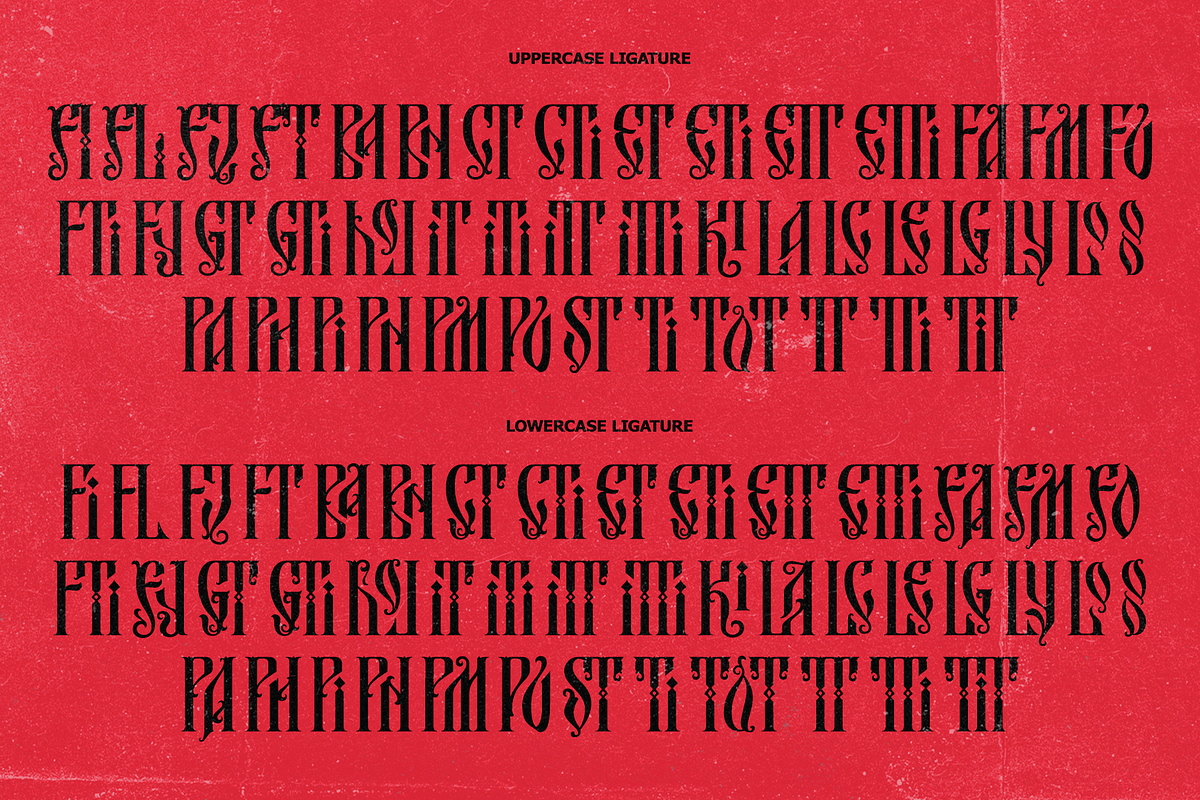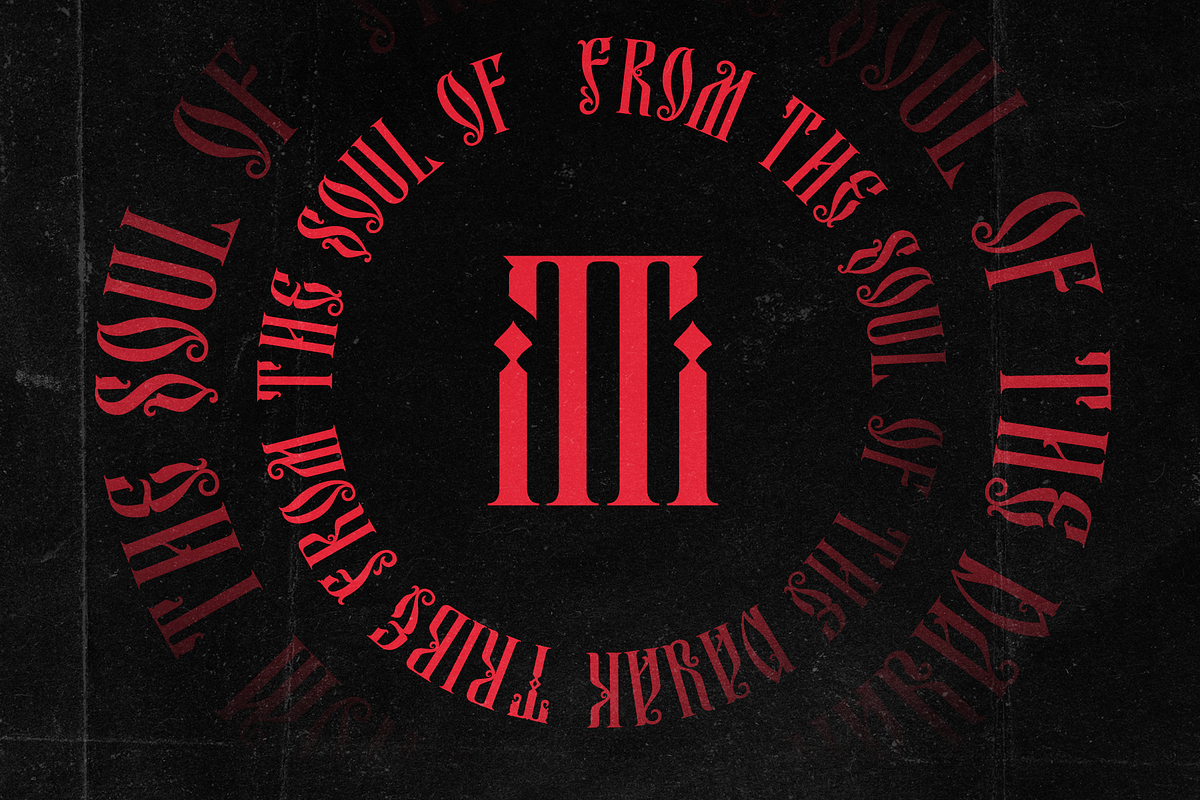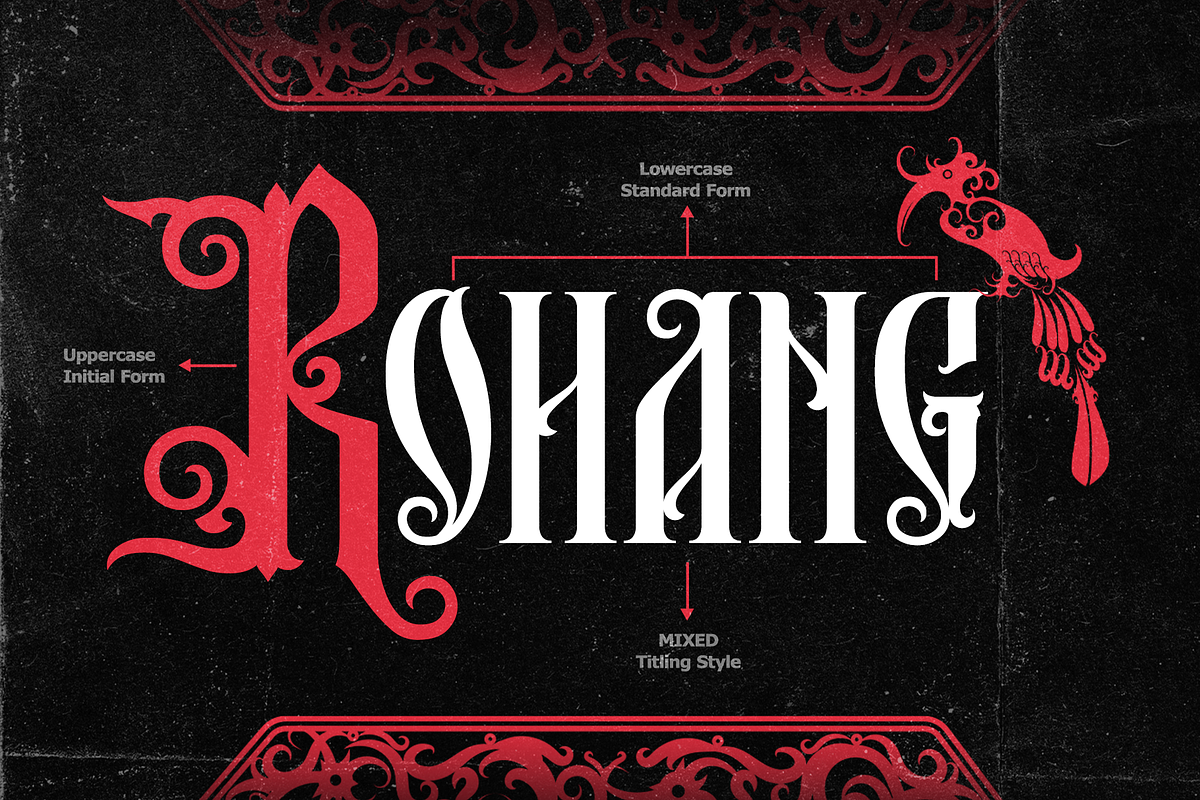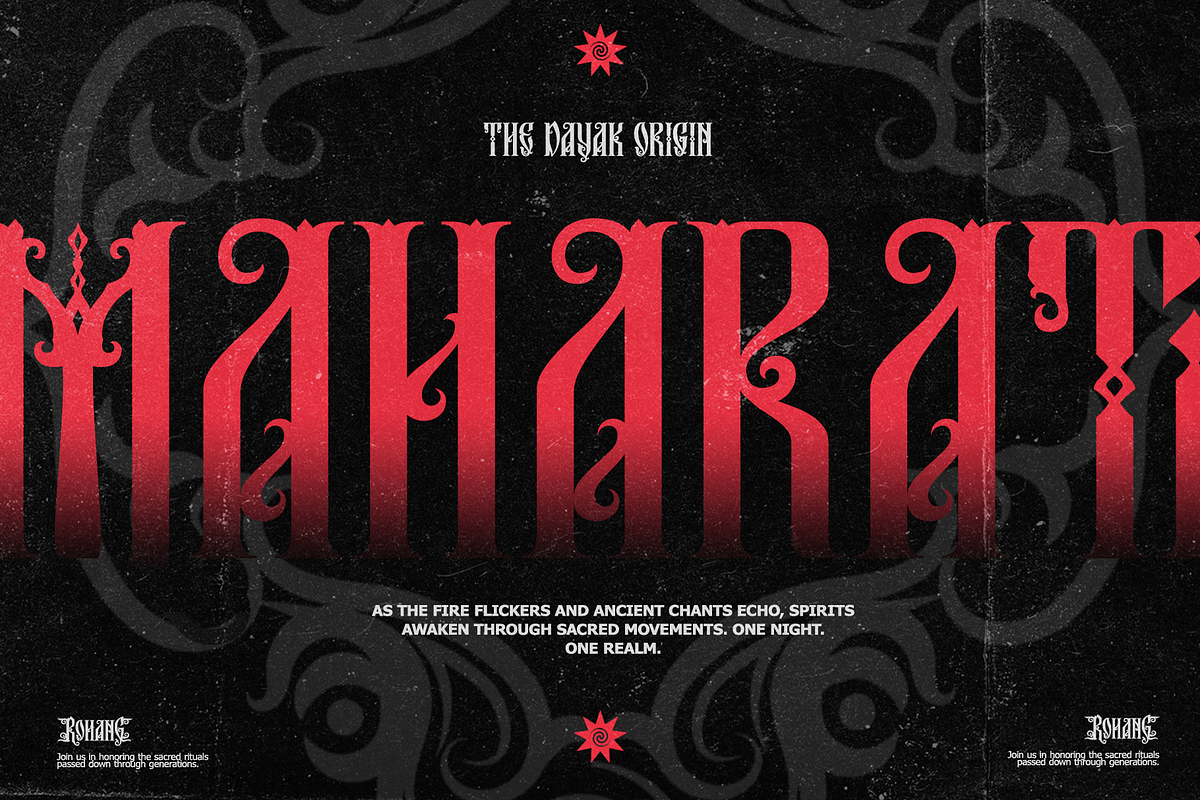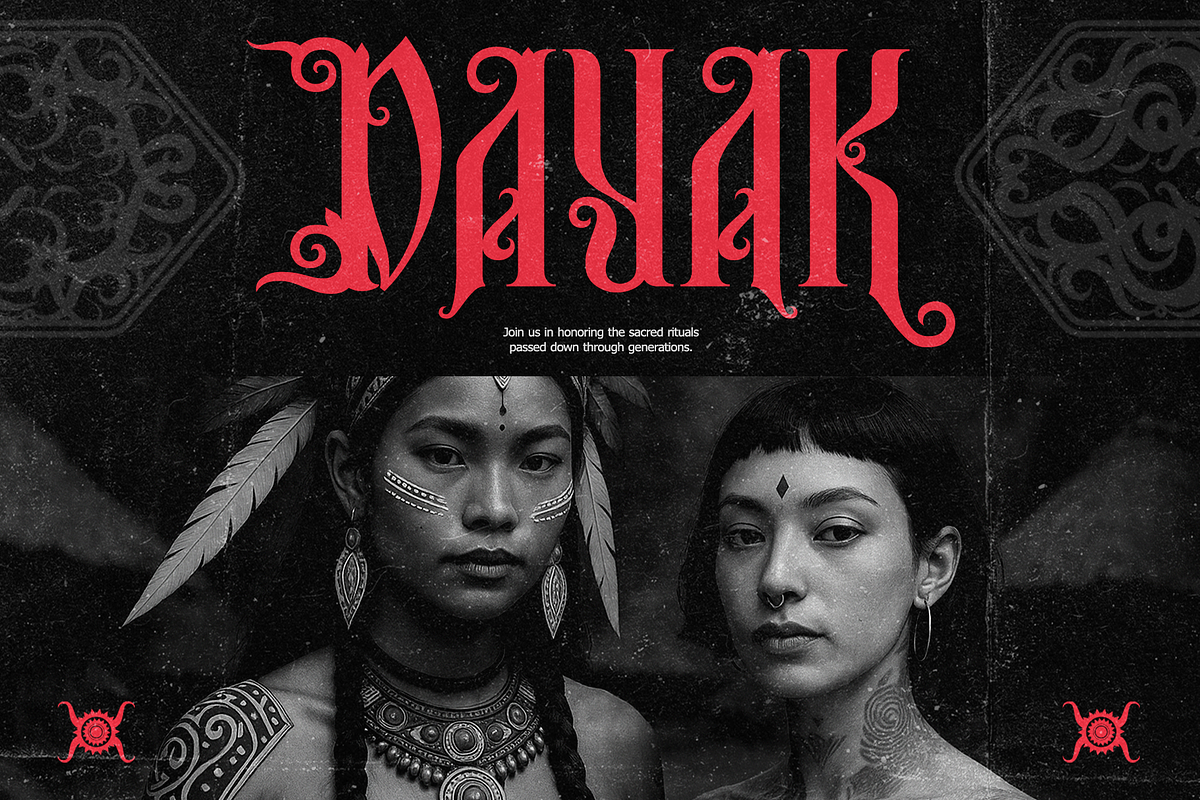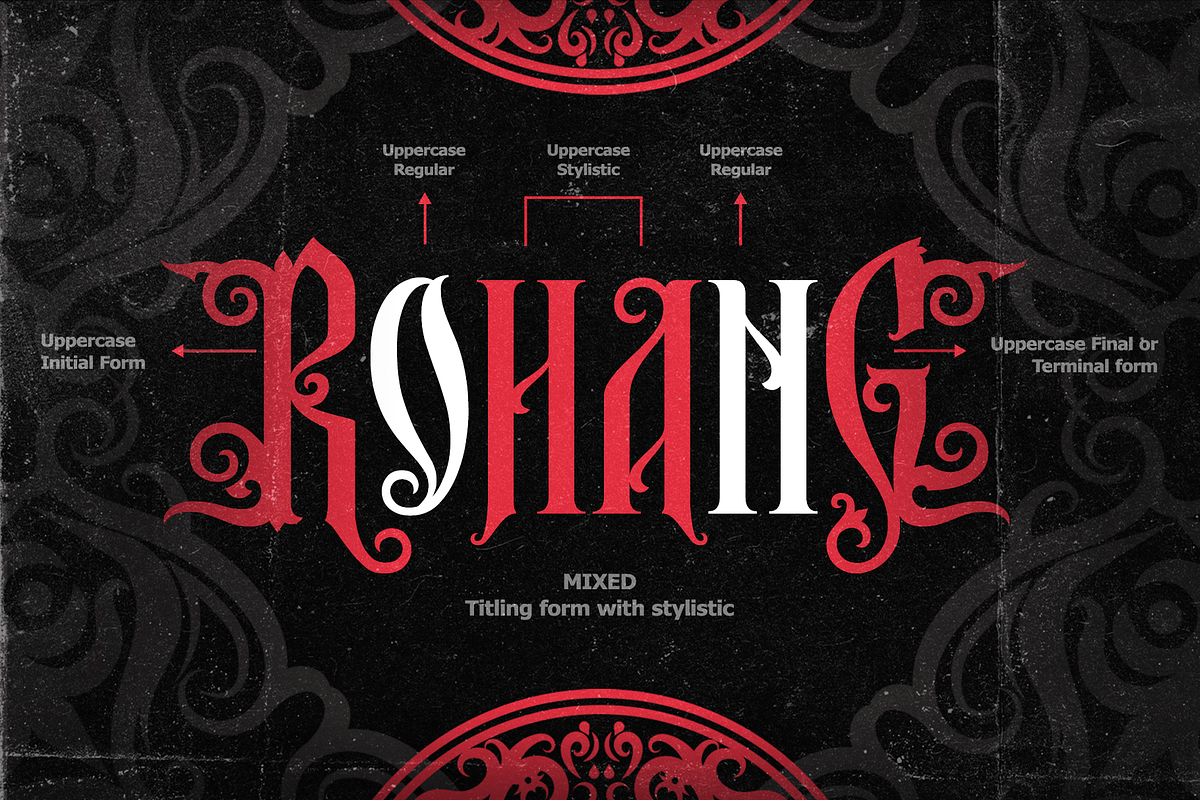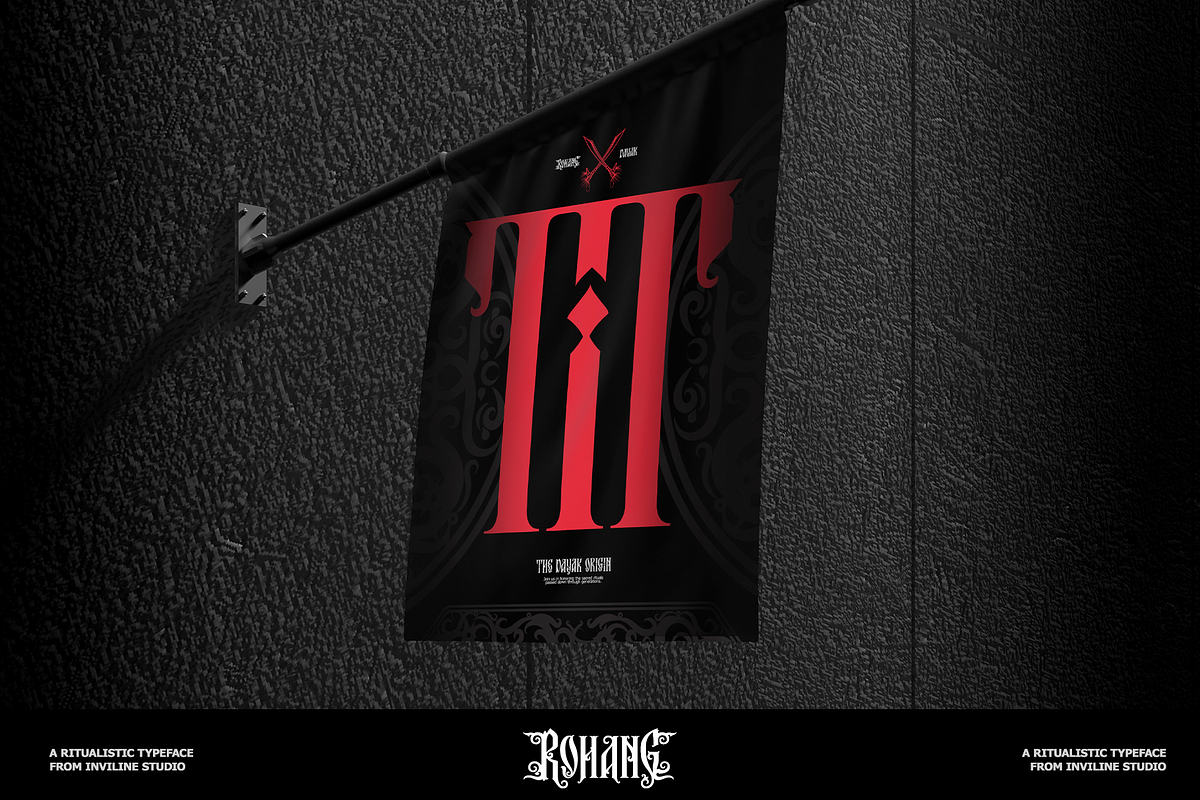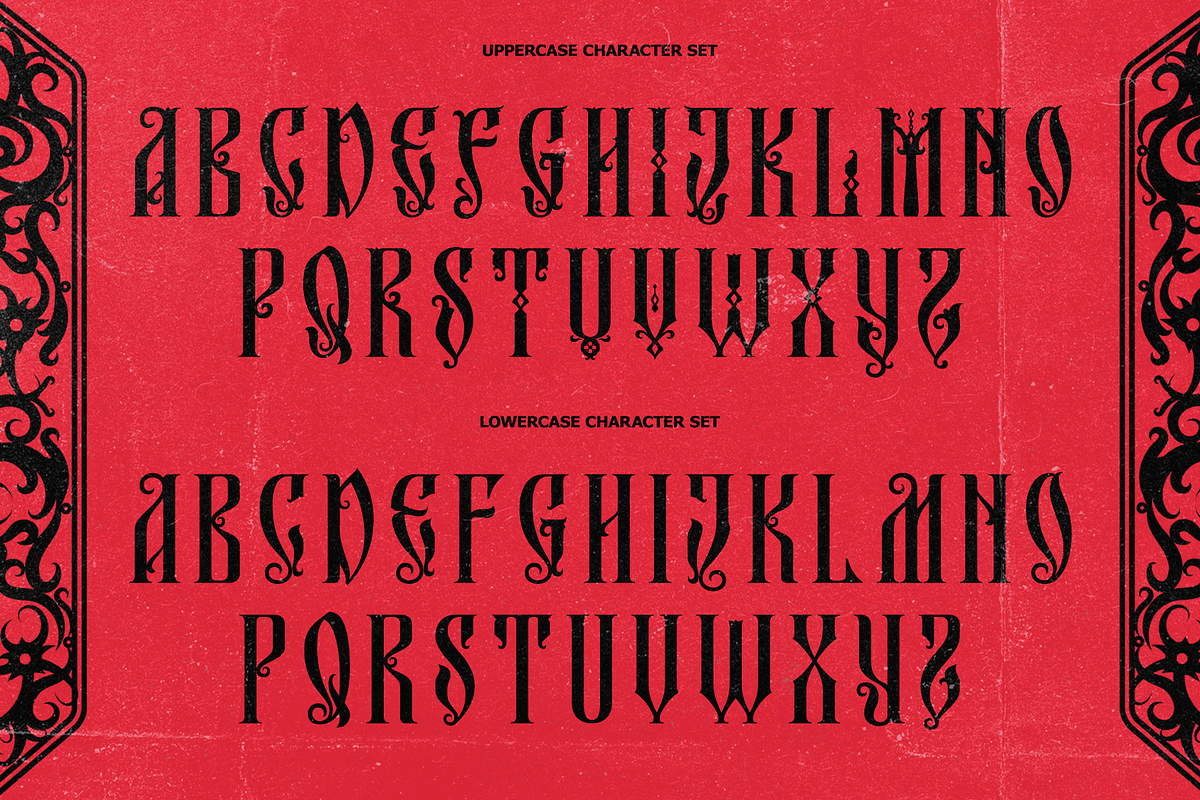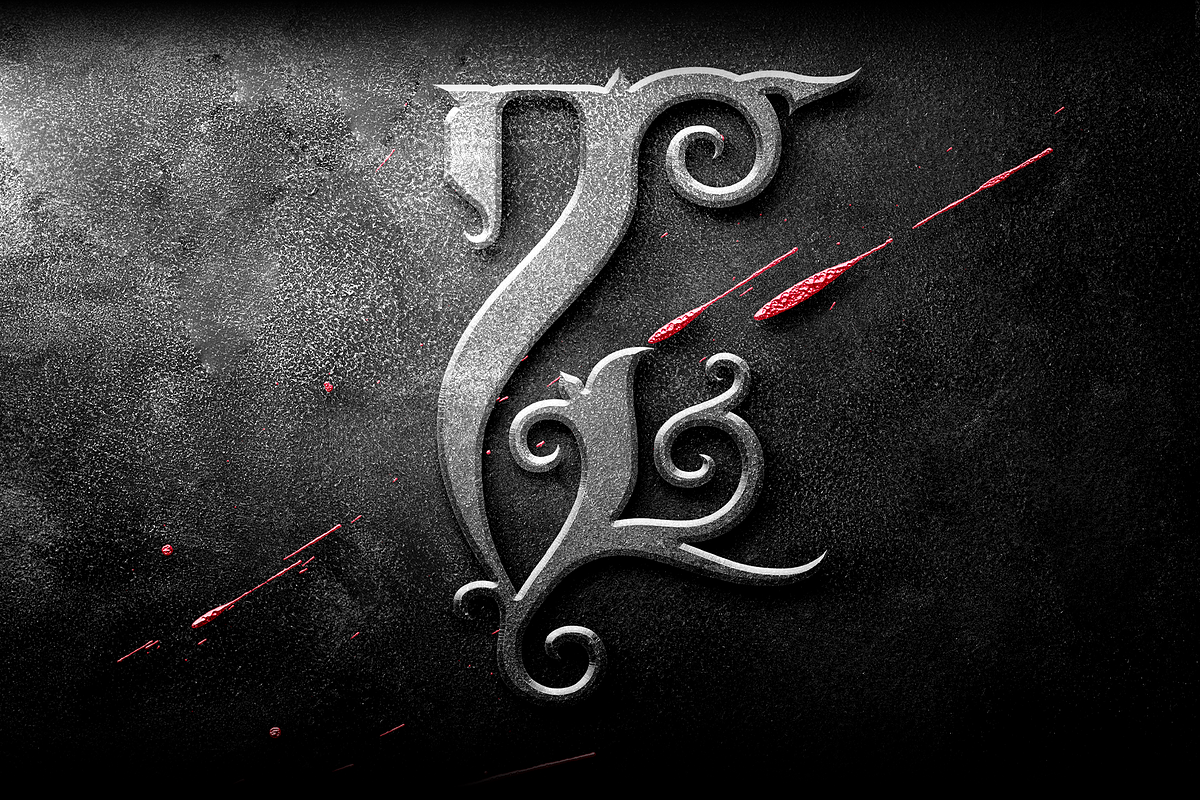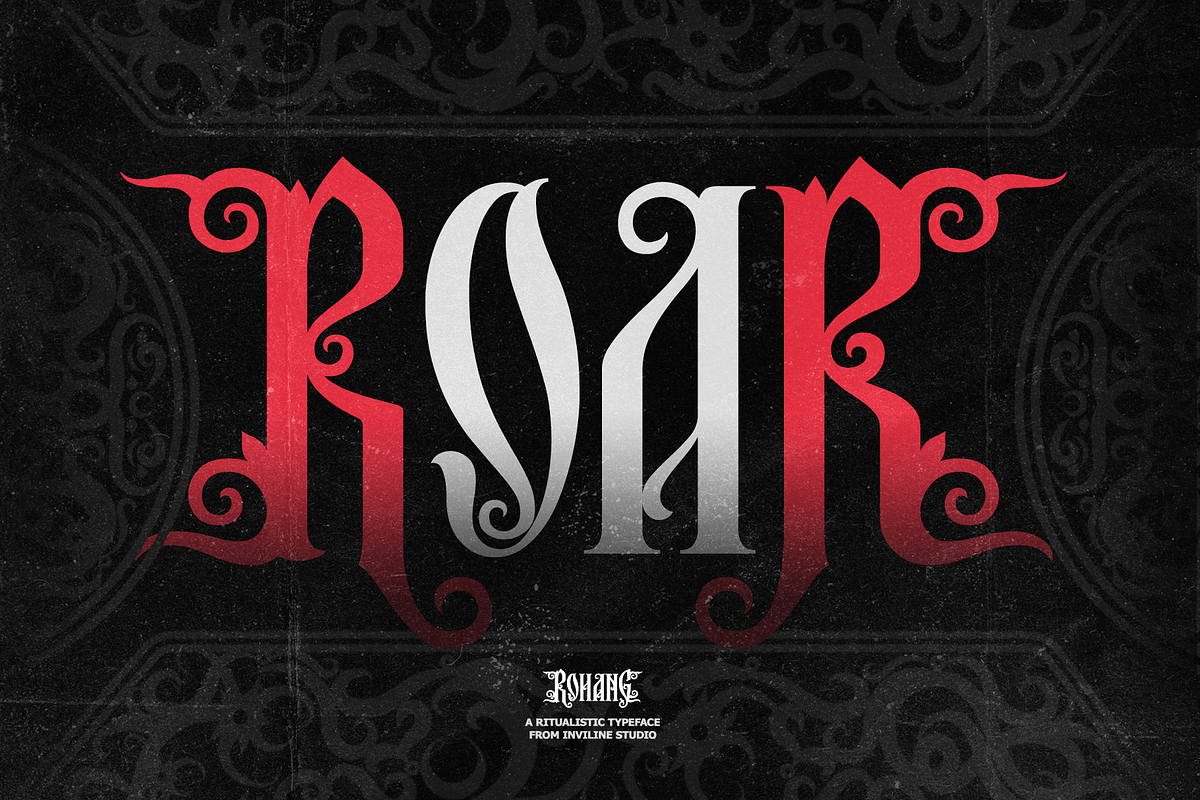
Rohang – Ritualistic Display Font
ROHANG – Ritualistic Display Typeface
ROHANG is a display typeface rooted in ritual, mysticism, and cultural symbolism. Inspired by tribal carvings, ancient ceremonies, and gothic forms, this font radiates raw intensity and spiritual energy. With its tall proportions and ornamental swashes, Rohang blends indigenous power with heavy metal spirit.
Whether you're creating band logos, festival posters, tattoo-inspired merch, or visual identities that demand boldness and soul, Rohang delivers a dramatic impact with every letter.
- Uppercase & lowercase with alternates
- Tribal-inspired swashes & decorative glyphs
- Multilingual support (Latin + accents)
- Ritual-themed visuals & music branding
- Metal/punk band logos and album art
- Cultural event posters & ceremonies
- Tattoo designs & alternative merch
- Editorial headlines with dark mystique